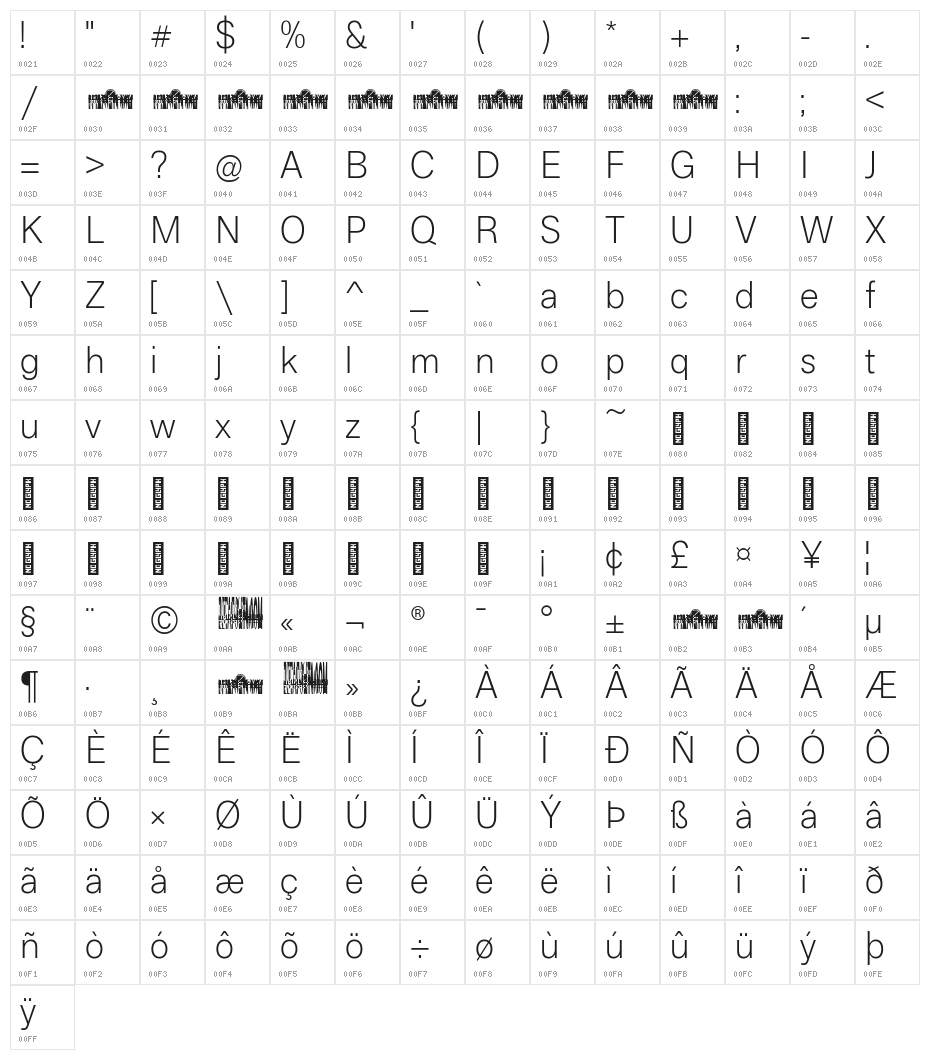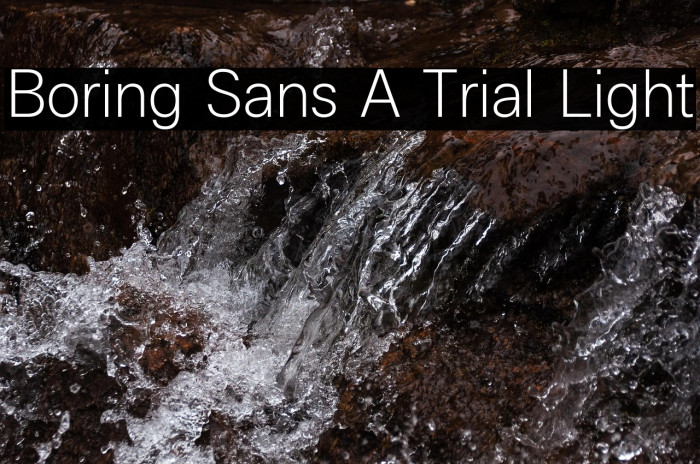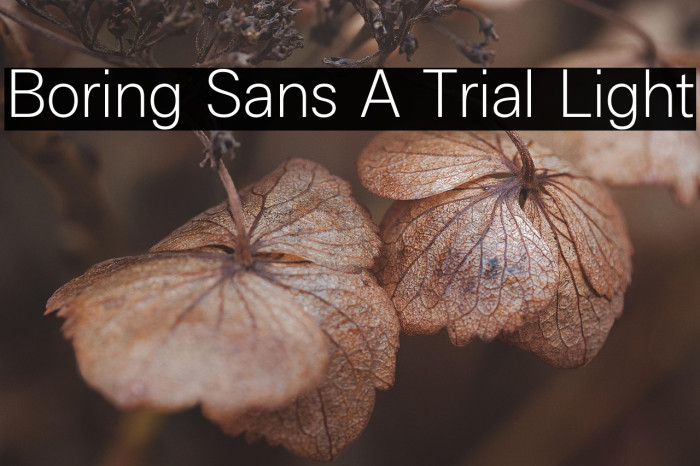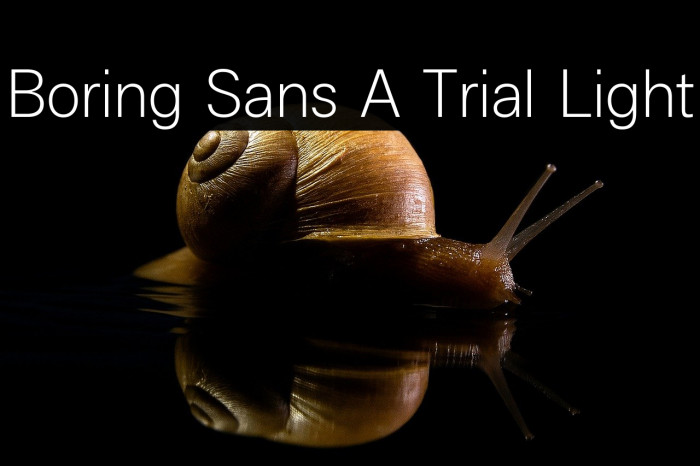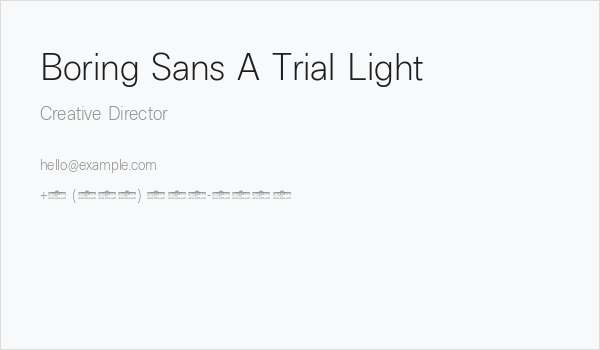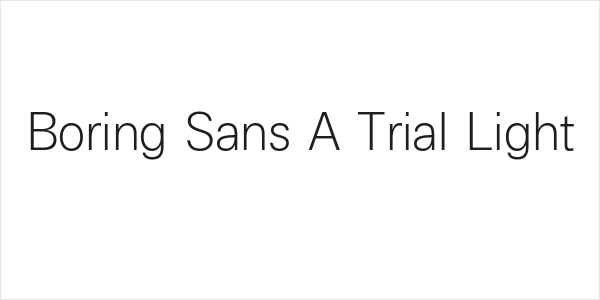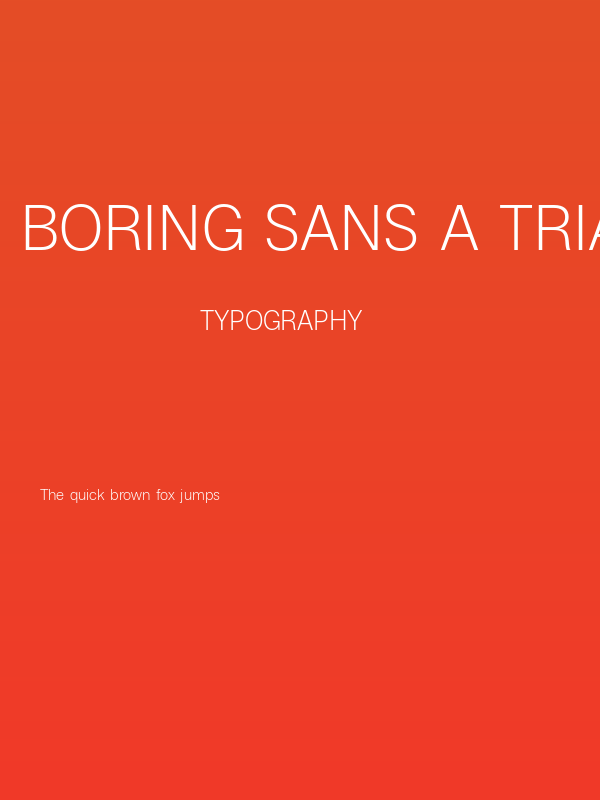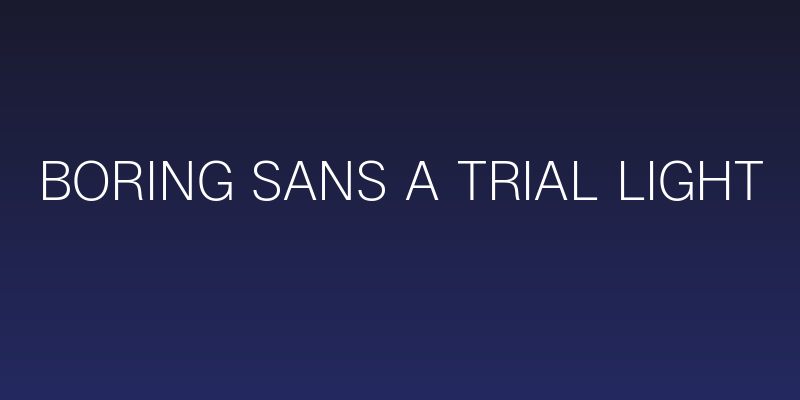
Boring Sans A Trial Light Font
Boring Sans A Trial Light Description
This font features a clean and minimalist design, characterized by its sans-serif style. The letters are evenly spaced with a consistent stroke width, giving it a modern and straightforward appearance. The uppercase and lowercase letters maintain a uniform height, contributing to its simplicity and readability. The numerals and special characters are designed to match the overall aesthetic, ensuring a cohesive look across all elements. This font is ideal for projects that require clarity and a contemporary feel.